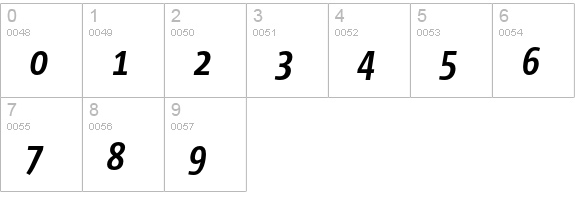
Corpid Cd Bold Italic Font Details
Corpid Cd Bold Italic is a strong, high-contrast, italic variant in the Corpid typeface family \xE2\x80\x94 well suited to headlines, attention-grabbing titles, and strong calls-to-action.
Corpid Cd Bold Italic is a modern and sleek font that exudes sophistication and elegance. Its bold weight and italic style make it perfect for adding emphasis and flair to any design project. With its clean lines and sharp angles, Corpid Cd Bold Italic commands attention and conveys a sense of strength and confidence. What sets Corpid Cd Bold Italic apart is that it is available for free download at FontsMarket.com. This means that you can easily access this high-quality font without any cost, making it a valuable addition to your font library. Whether you are working on a branding project, website design, or print material, Corpid Cd Bold Italic offers versatility and visual impact to help your content stand out. Download Corpid Cd Bold Italic for free today at FontsMarket.com and elevate your designs with this striking and stylish font.